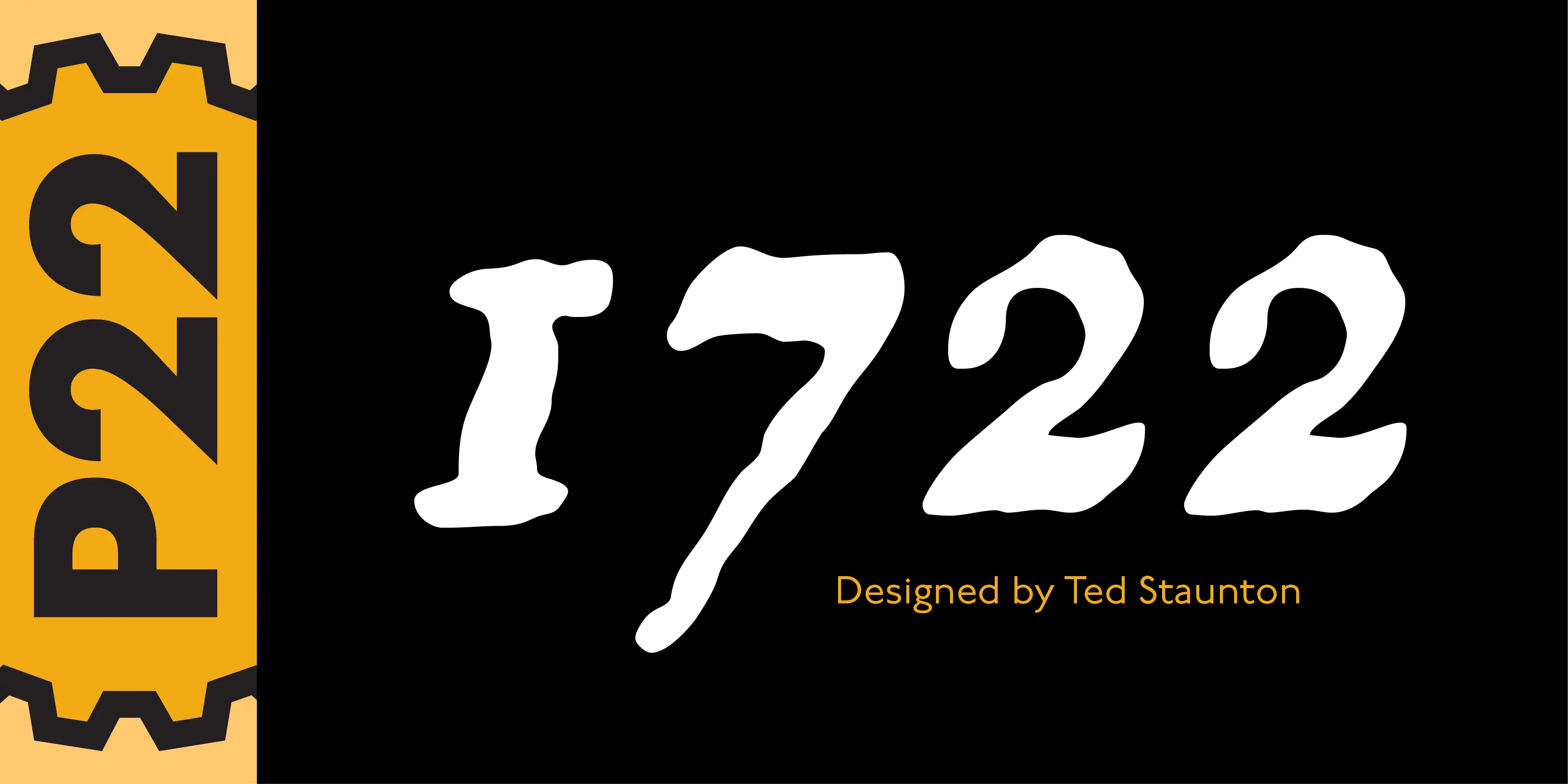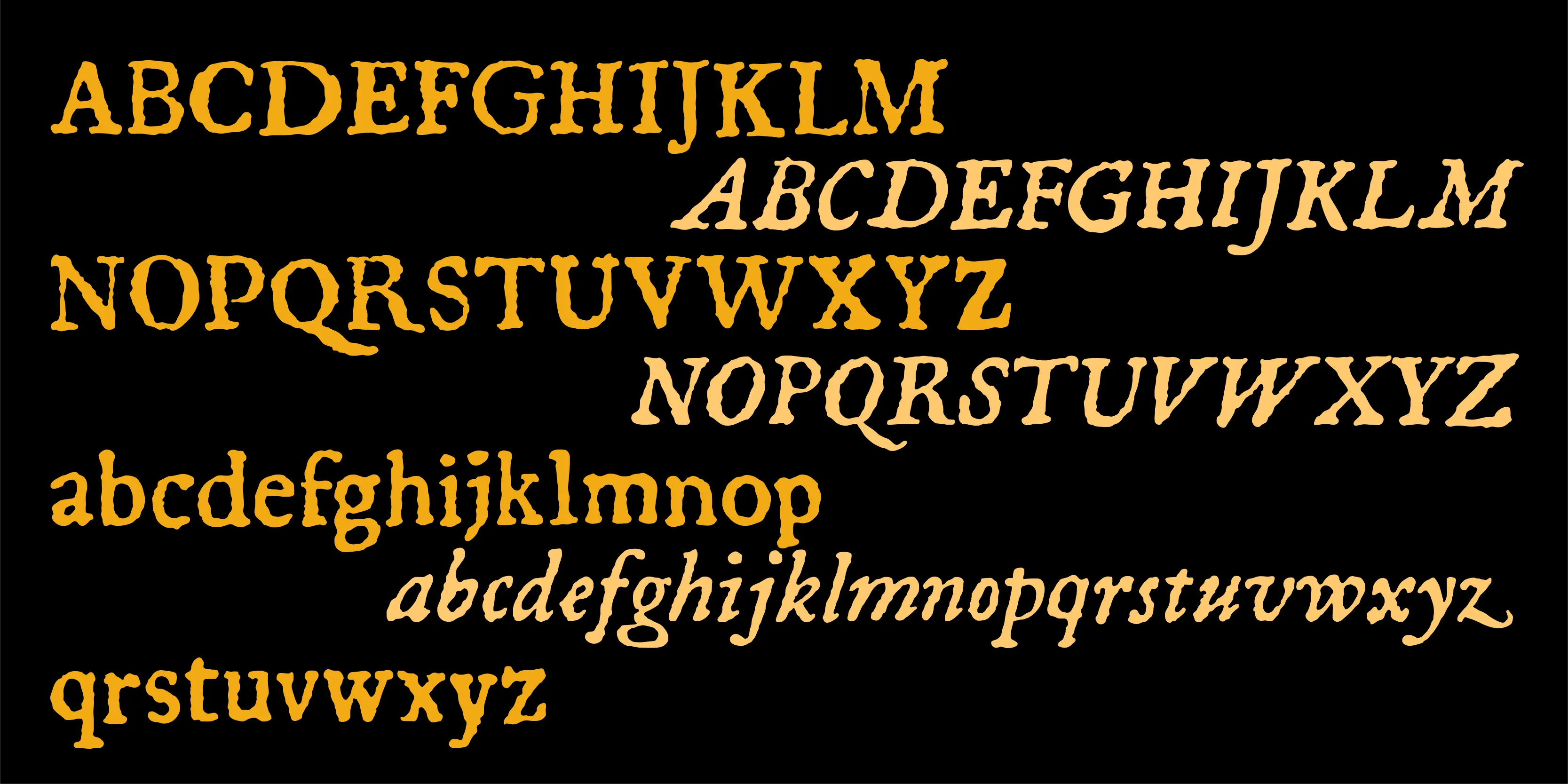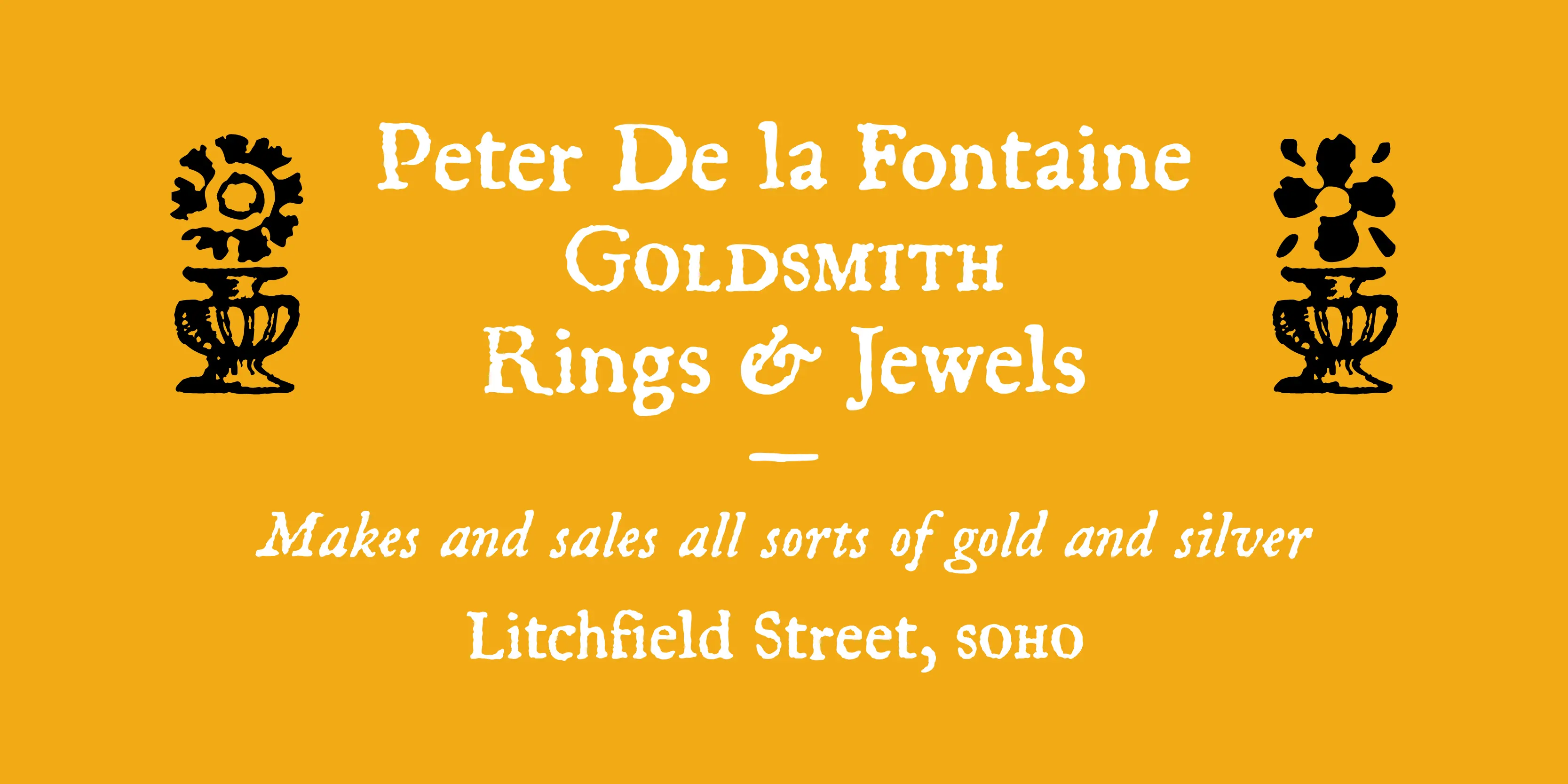
1722 Font Family
1722
1722 is a historical font based on early 18th-century printing, with the visual effect of uneven inking and indifferent presswork on handmade paper. Ideal for evoking the period. Effective in continuous text setting or in display sizes.
• Lining Numerals
• Ornaments
• Small Capitals
• Small Capitals for Capitals
Ornaments
Lining Figures
Small Capitals
Small Capitals from Capitals